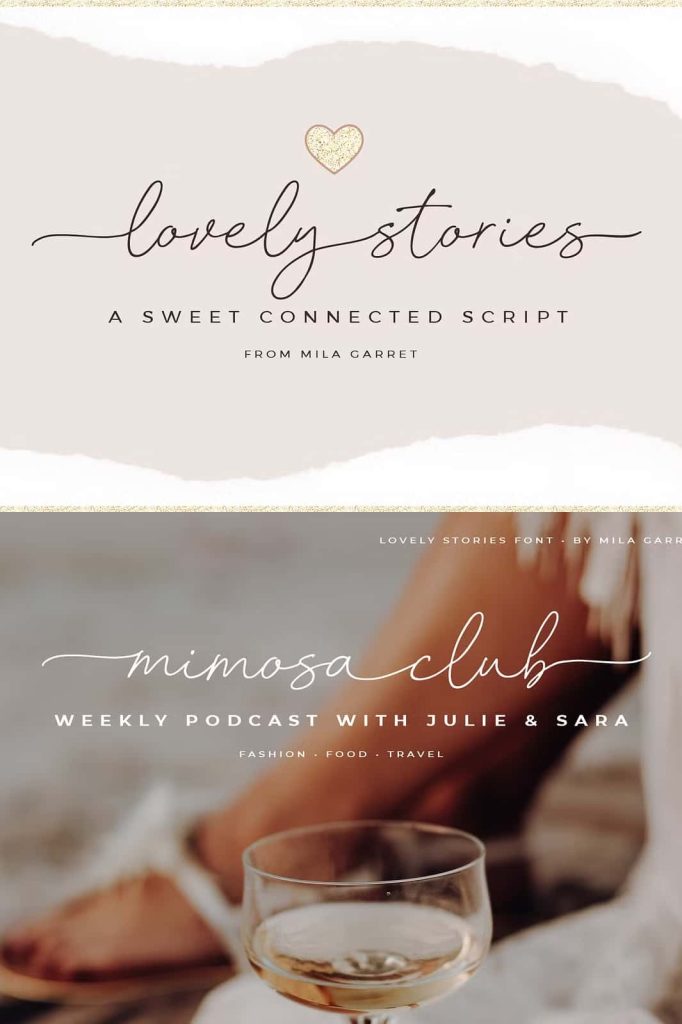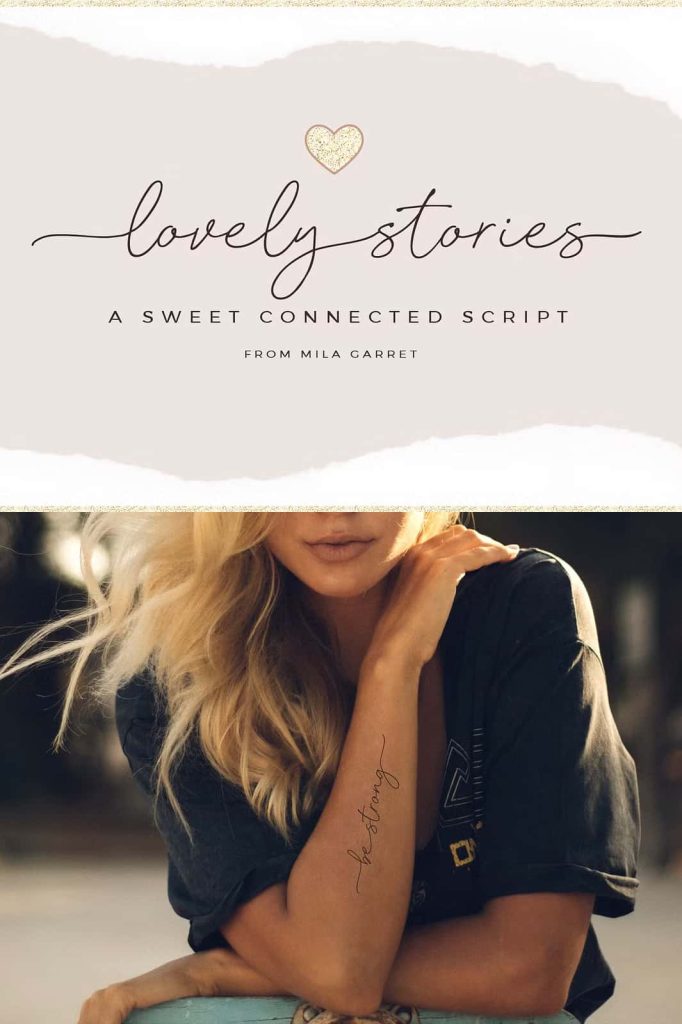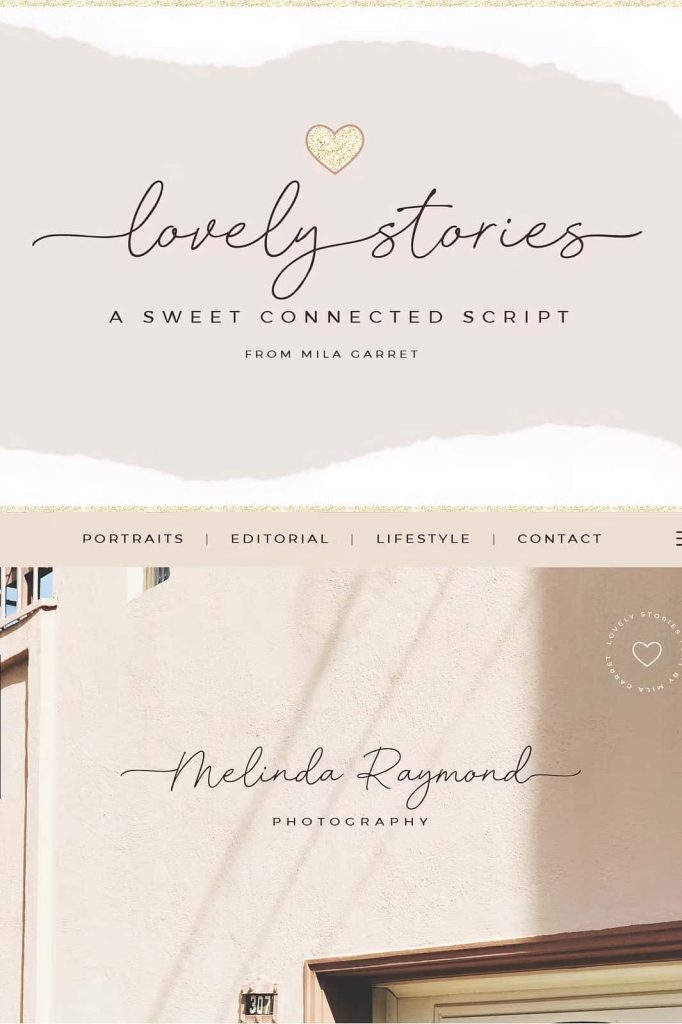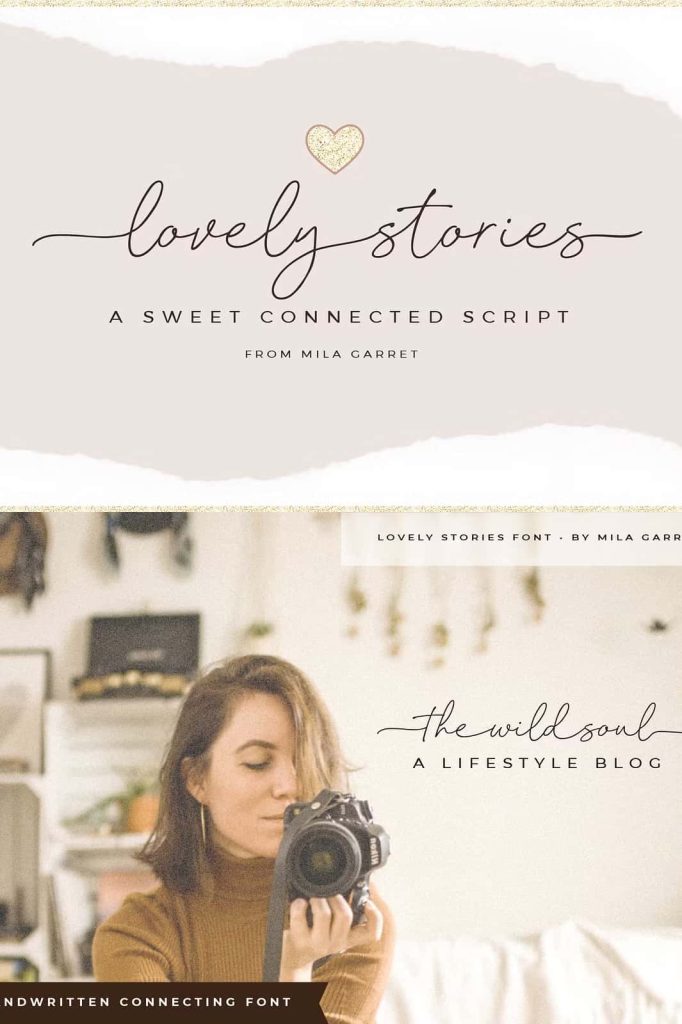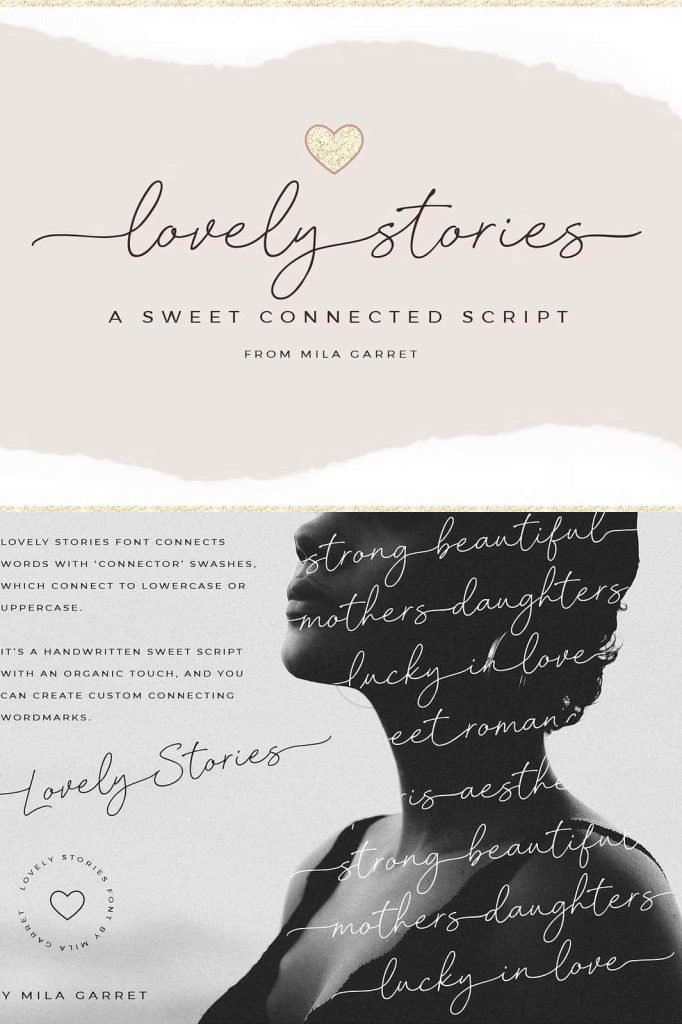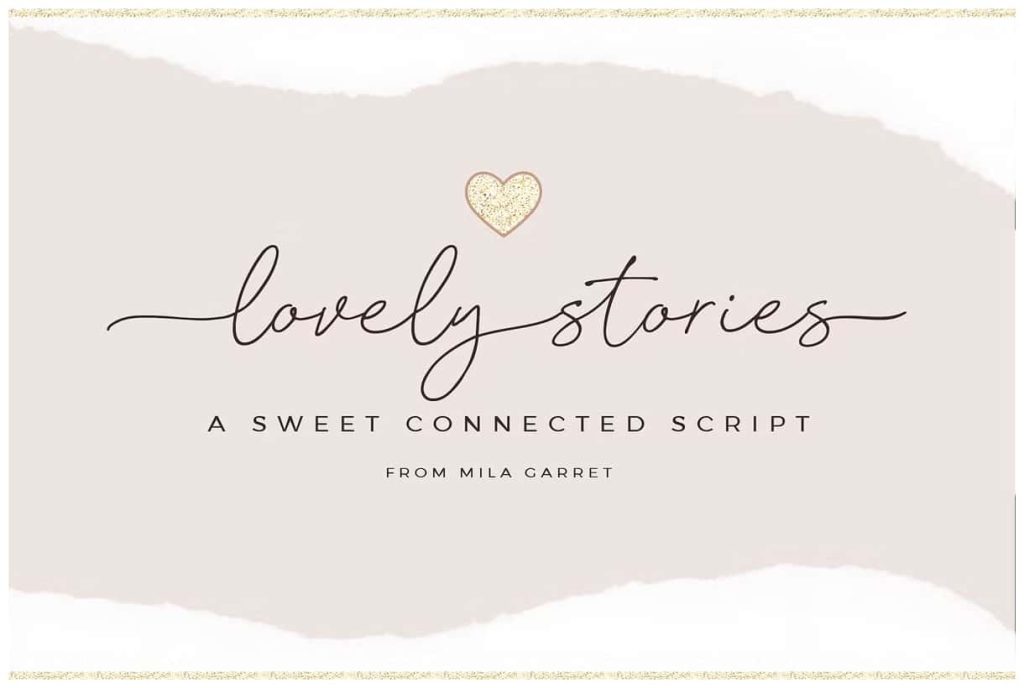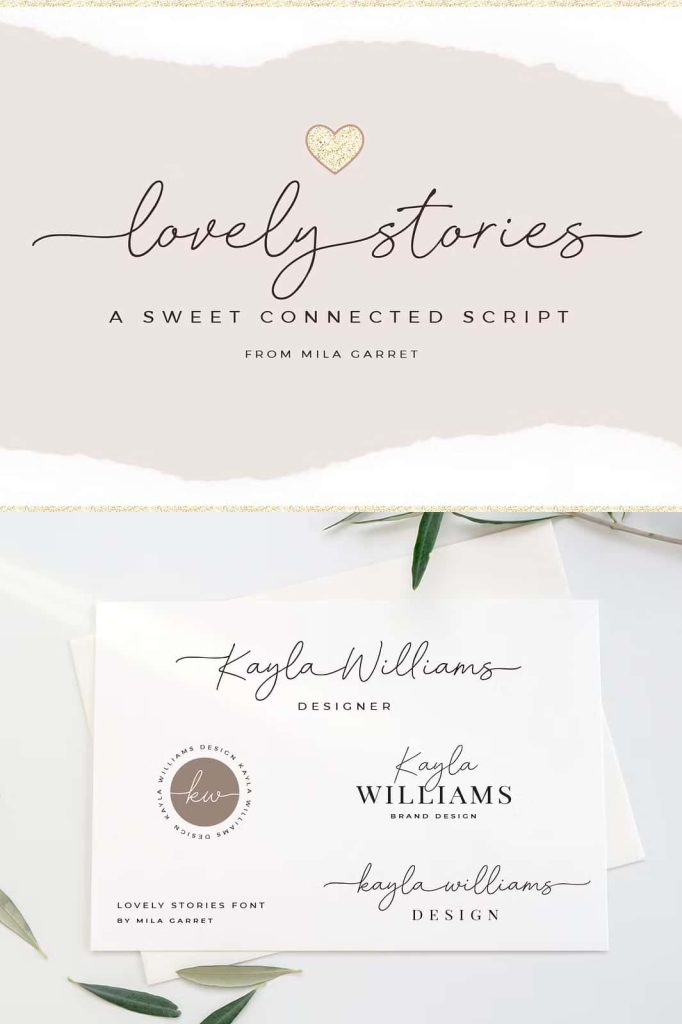
Introducing Lovely Stories, a connected, handwritten script font perfect for weddings, organic handwritten logos, modern branding, stylish websites, social media graphics, and more!